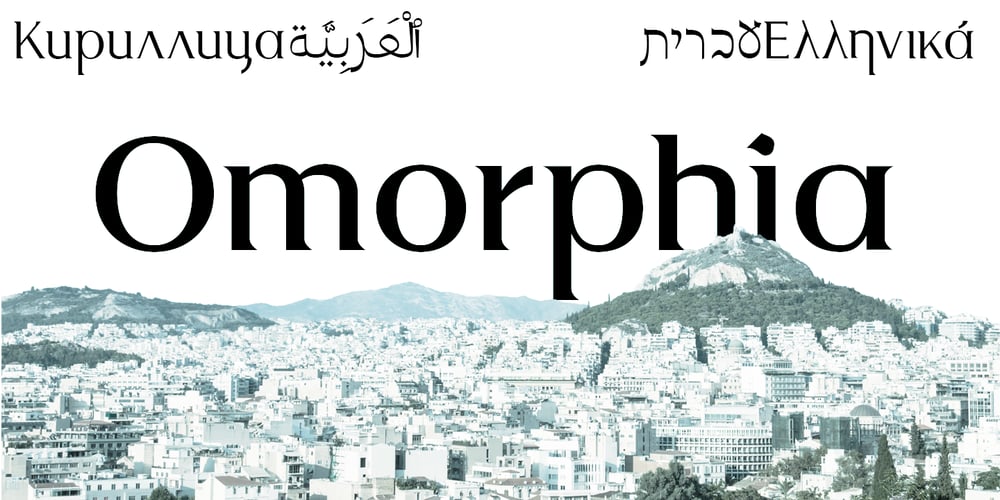
Omorphia Font Family was designed by Anna Tsuranova and published by LetterMuzara. Omorphia contains 2 styles and family package options. Omorphia is a decorative serif font inspired by Sephardic square type – the only Hebrew style with one vertical serif for each letter. Omorphia contains three script systems, including European extended Latin, Cyrillic, Greek, Hebrew and Arabic. The font has OpenType features as alternates and local substitution for Romanian and Serbian. Alternates themselves are based on cursive, script forms. Omorphia is an excellent choice for branding, packaging, fashion and titles.